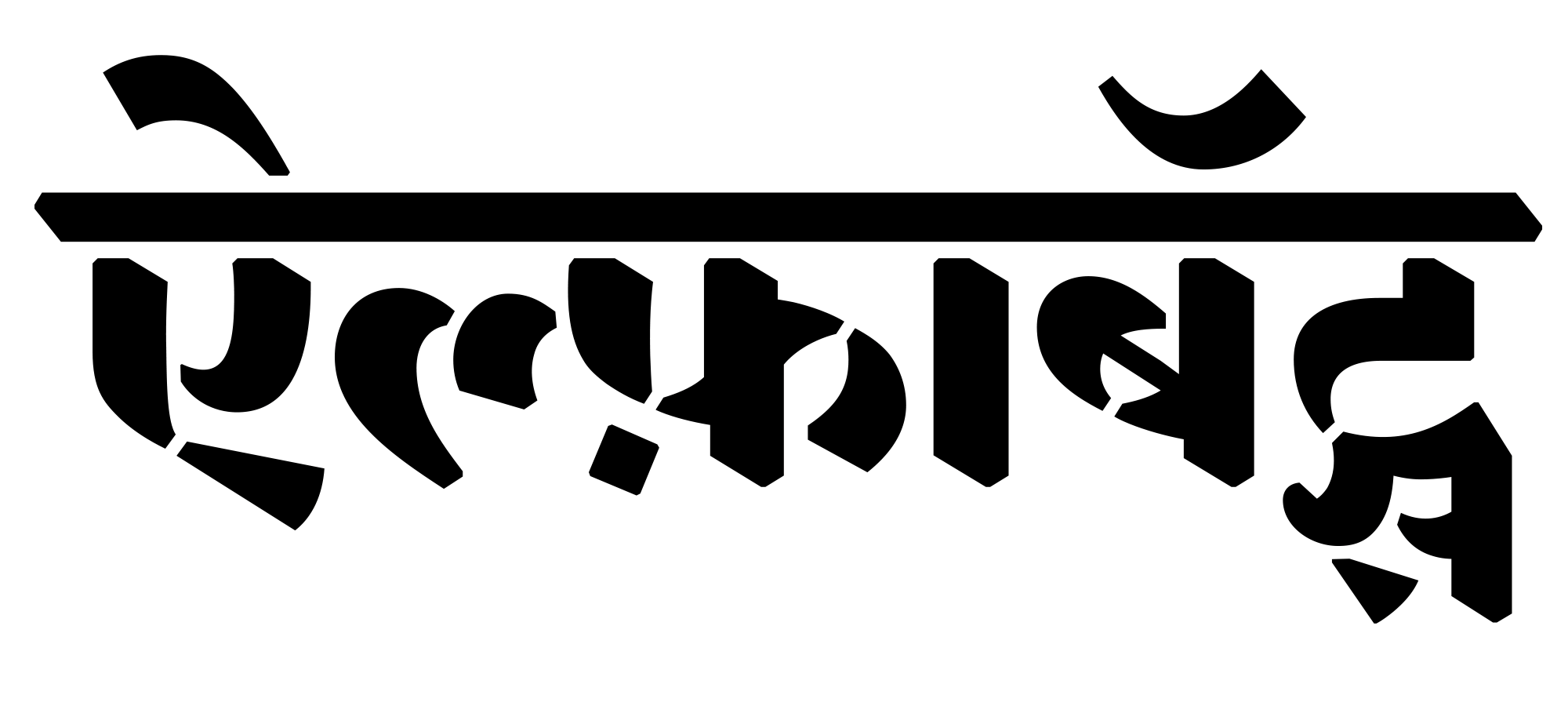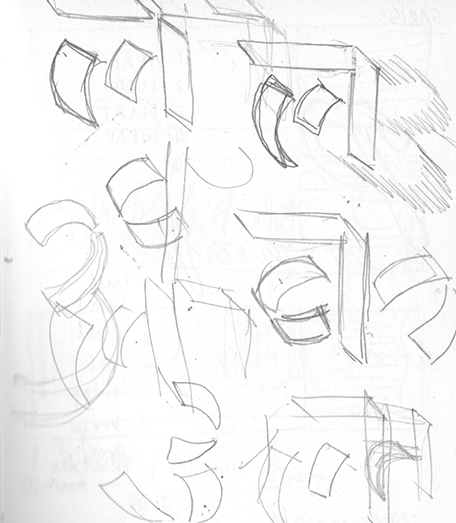
Devanagari header for Alphabettes
For my first header for Alphabettes — a loose collective of women working in the fields of lettering, typography and type design — I went back to an idea I have been thinking about for some years — a heavy, stenciled Devanagari design.